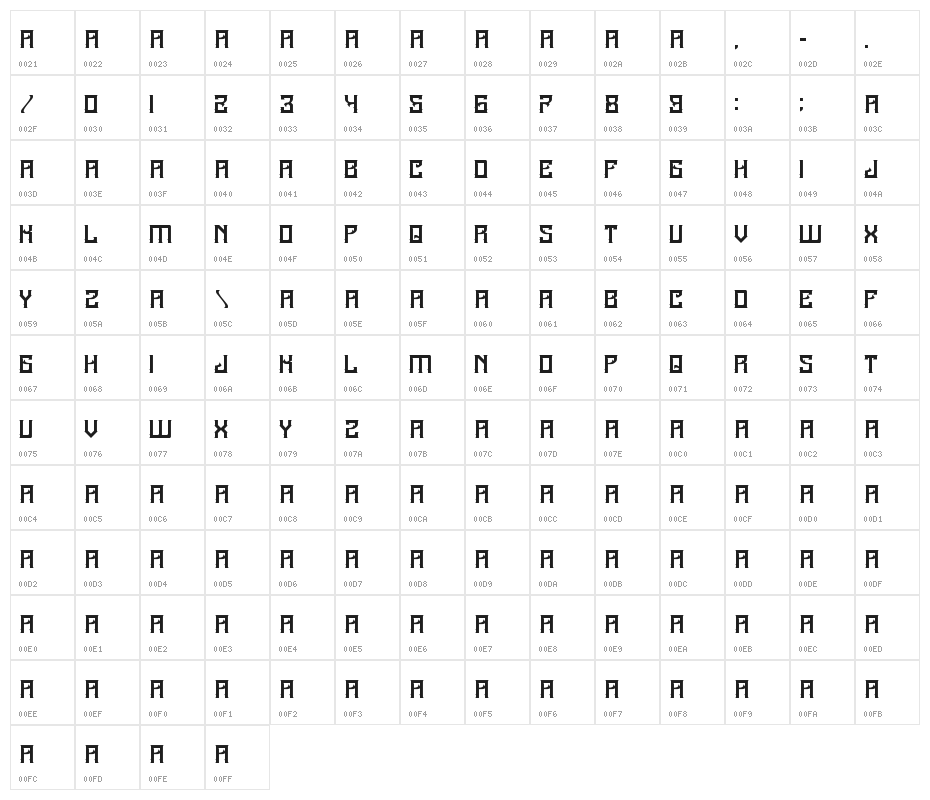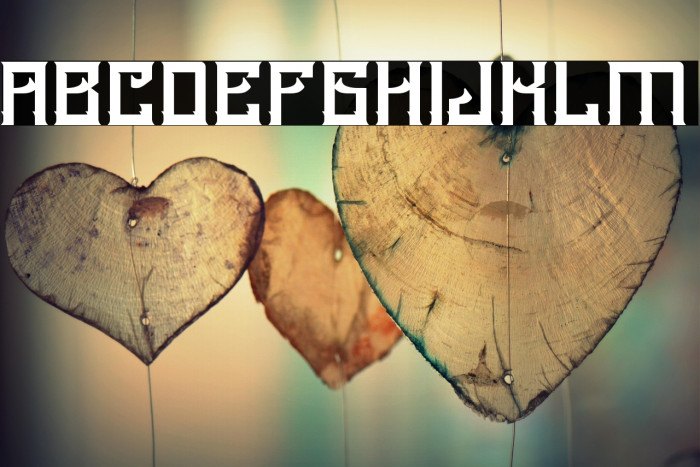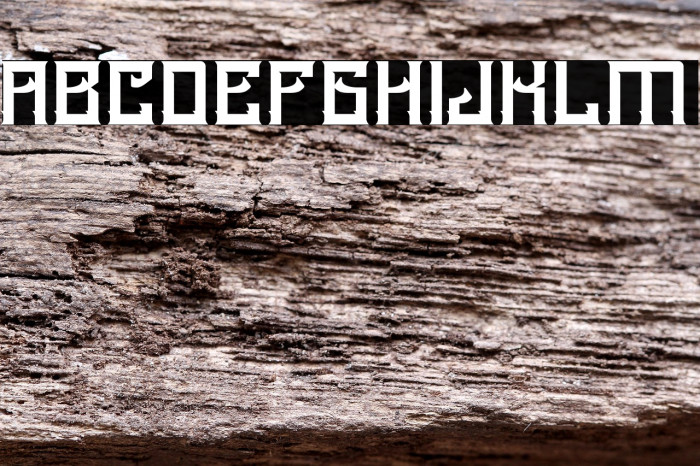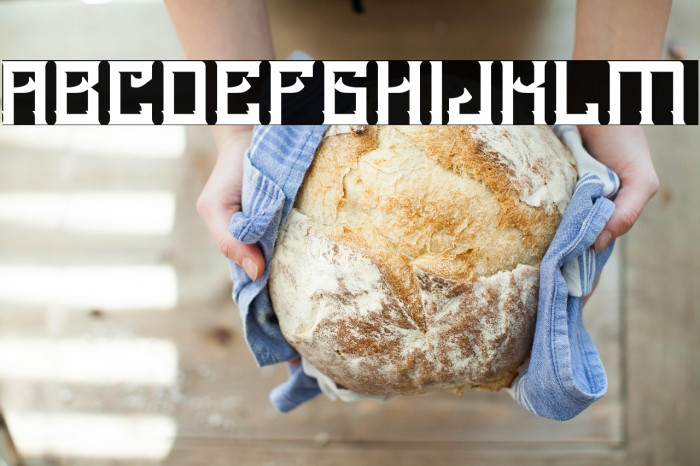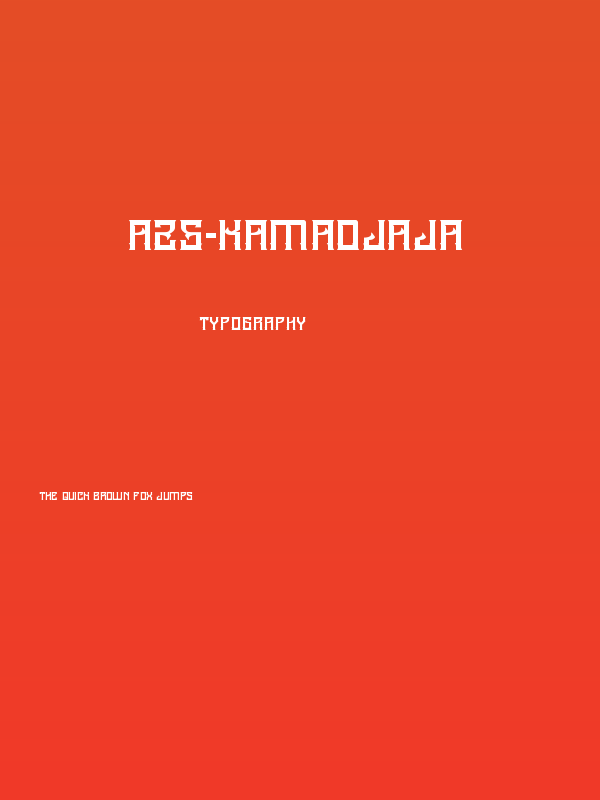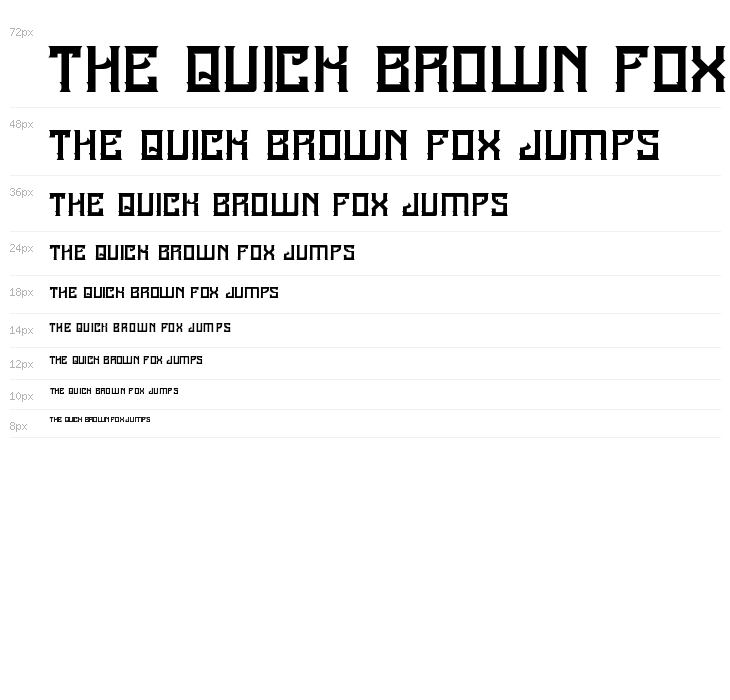
A25-KAMADJAJA Font
A25-KAMADJAJA Description
This font features a bold and striking design with a strong geometric influence. The characters are constructed with sharp angles and a blocky appearance, giving it a modern and edgy feel. The uppercase letters are particularly prominent, with a uniform height and width that create a cohesive and balanced look. The lowercase letters maintain the same angular style, ensuring consistency throughout the typeface. Numbers and special characters are designed to match the overall aesthetic, making this font versatile for various applications. The unique style of this font makes it ideal for projects that require a bold statement.
| Proposed Projects | Ideal for branding, posters, headlines, and any design that requires a strong visual impact. |